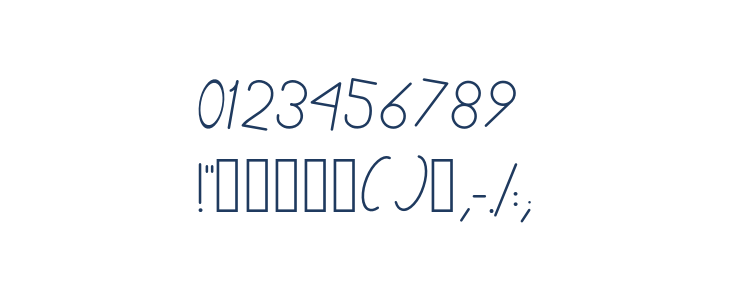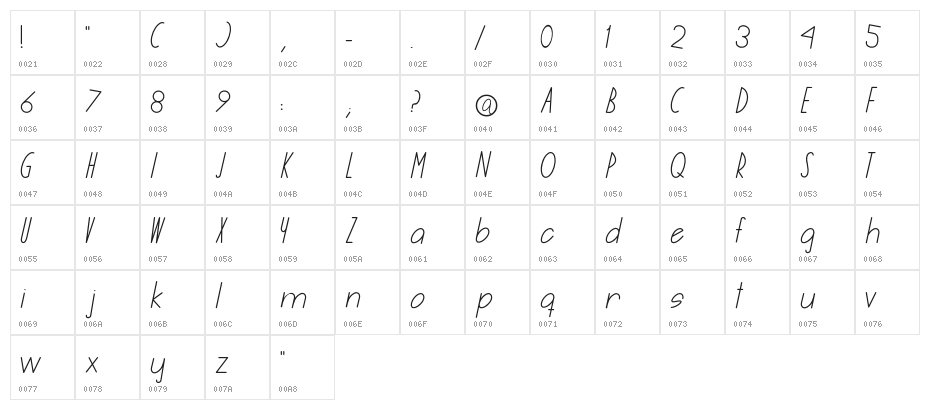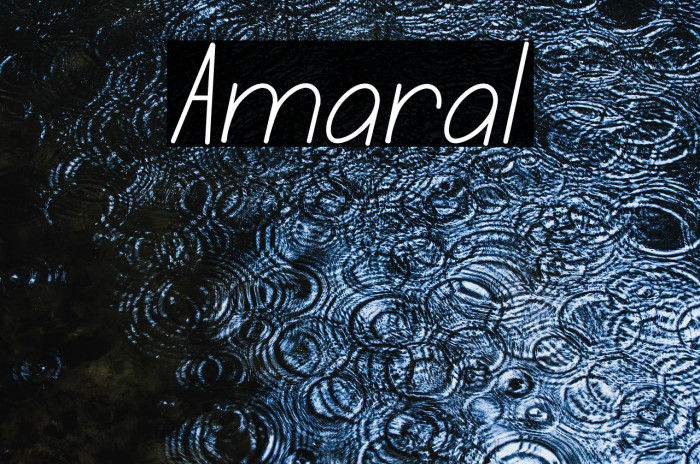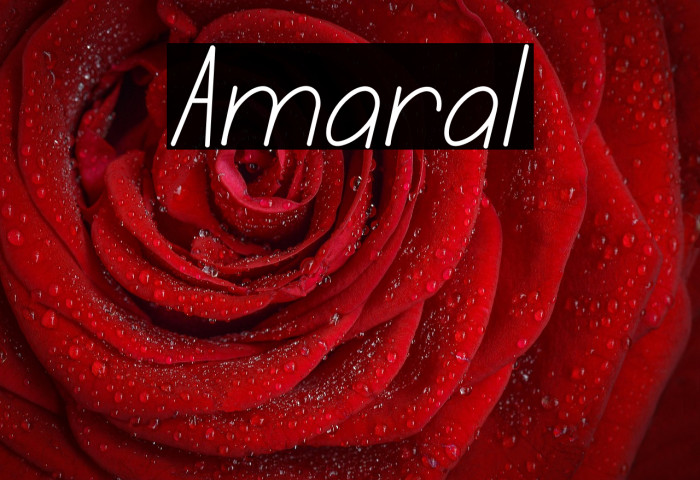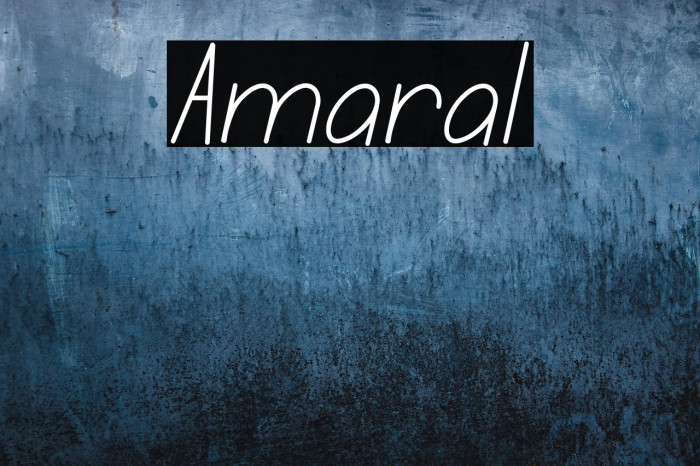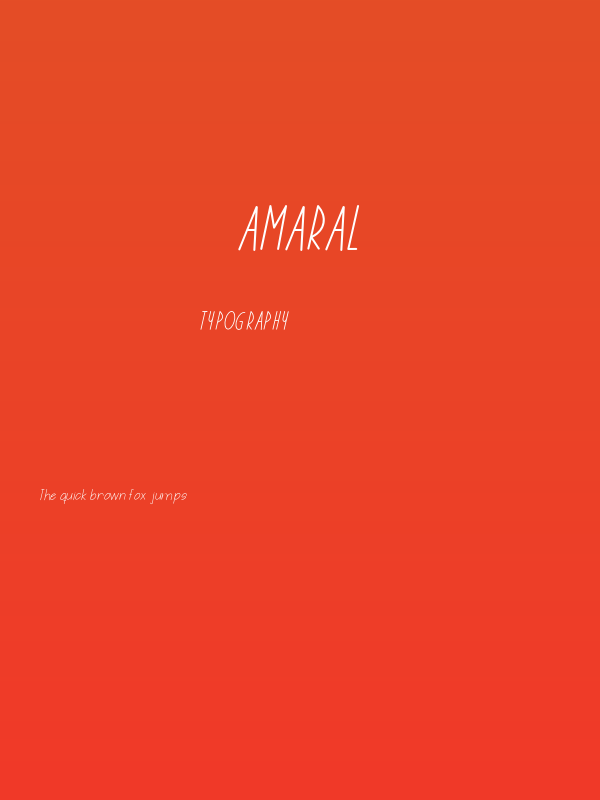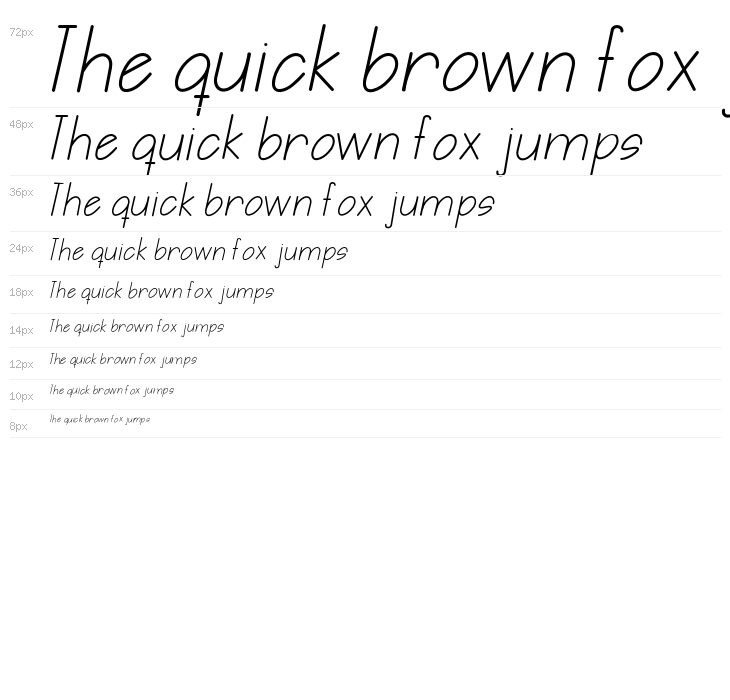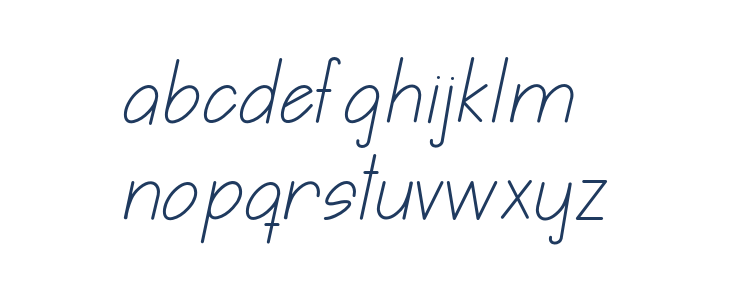
Amaral Font
Amaral Description
This font features a playful and casual handwritten style, characterized by its tall, narrow letterforms and slightly slanted appearance. The strokes are consistent in width, providing a uniform look across all characters. The uppercase letters are slightly taller than the lowercase, maintaining a cohesive flow. The numbers are clear and easy to read, matching the overall style of the alphabet. Special characters are included, though some may appear less distinct. This font's informal and friendly nature makes it suitable for projects that require a personal touch.